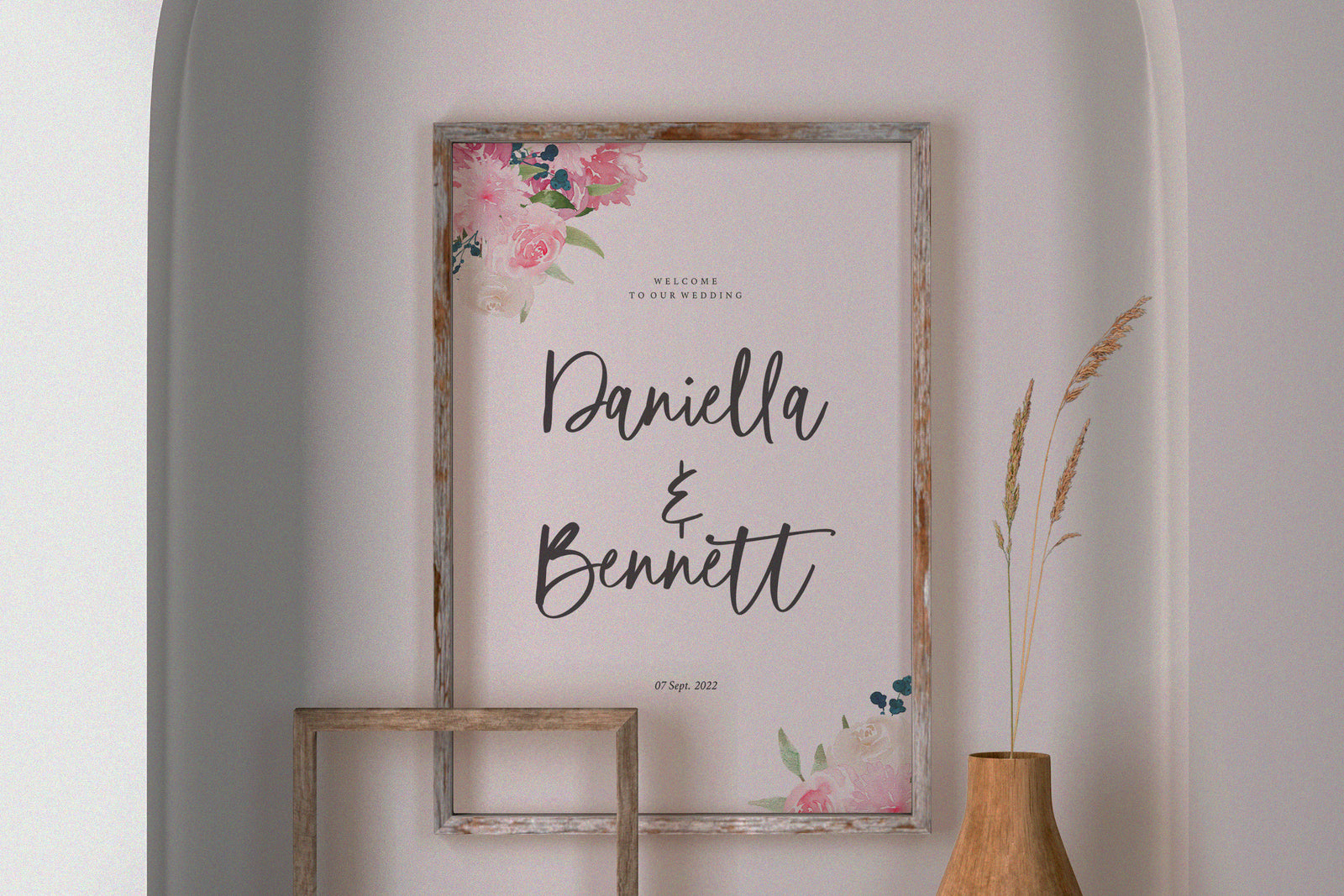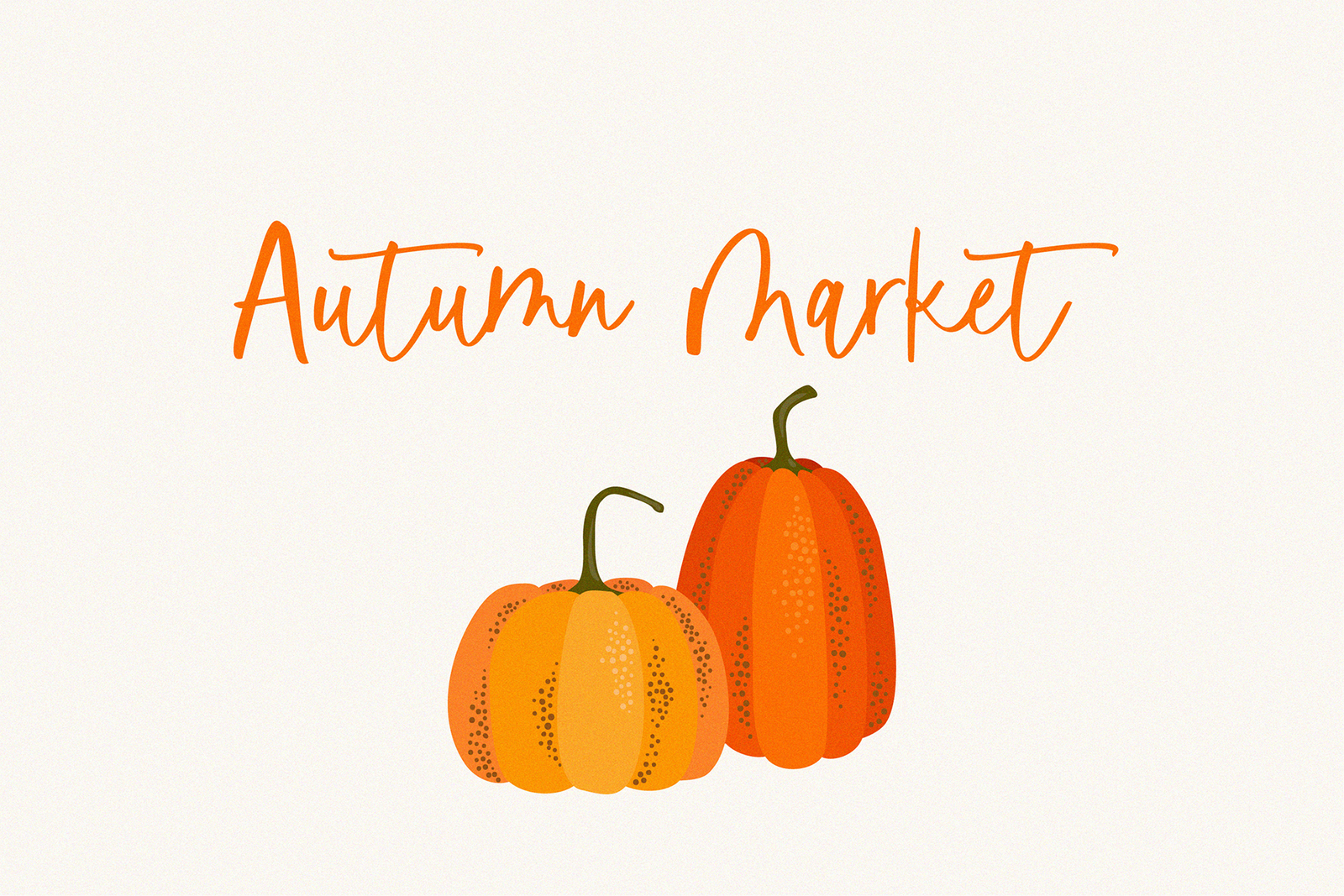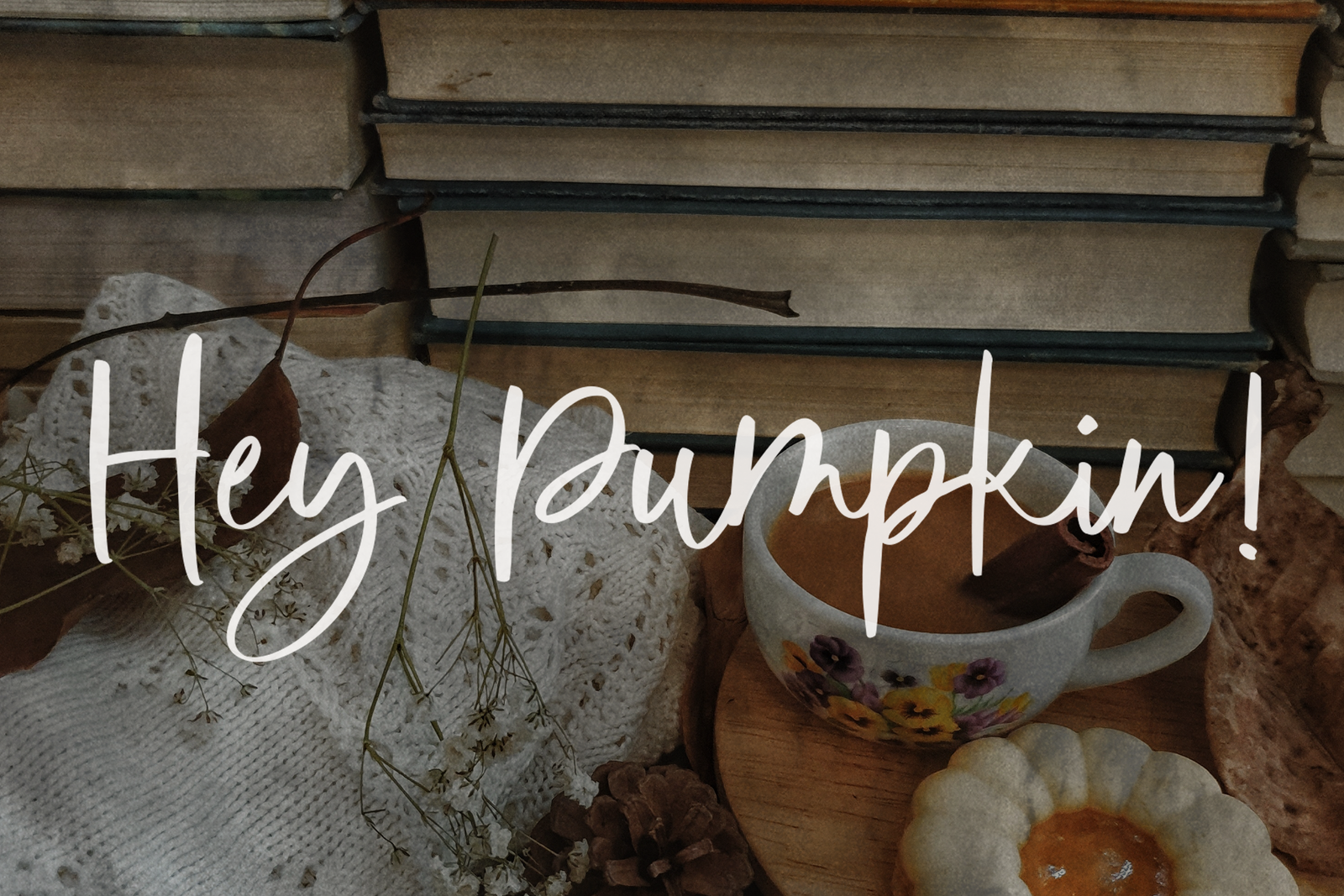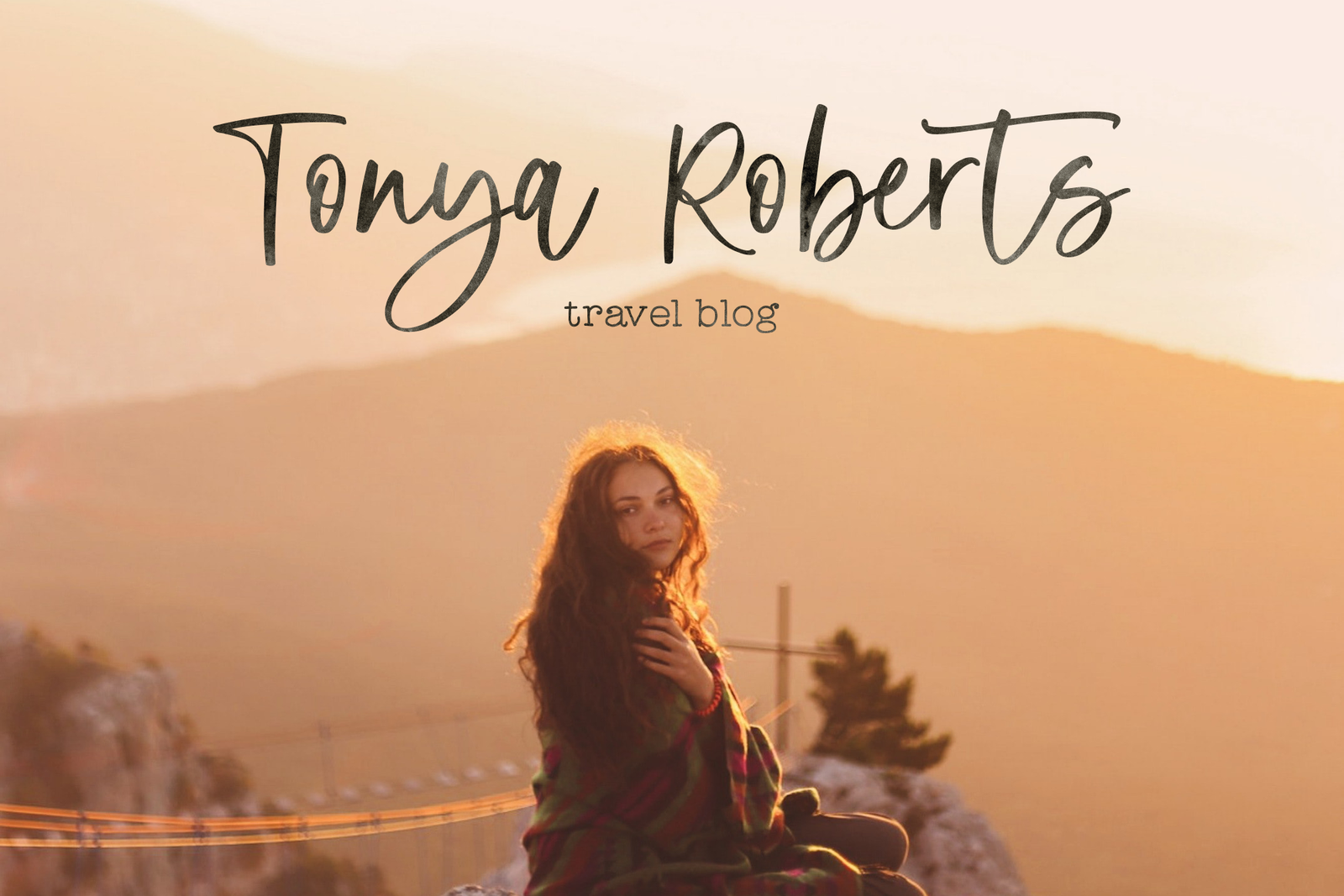
Chocolate Peaches // Simple font
Hey guys! So happy to introduce you our new font “Chocolate Peaches”! It is great for projects that have a playful or cute theme, whether for labels, signage, packages, stickers, etc. Along with being legible due to its bold letters, this typeface can make a lovely addition to boho designs that incorporate natural elements, patterns, texture and many colors.